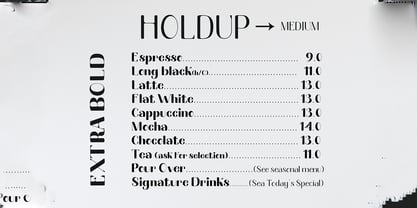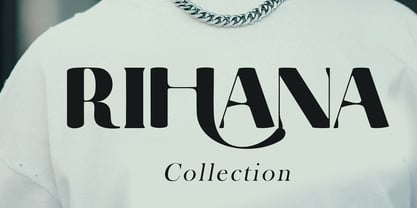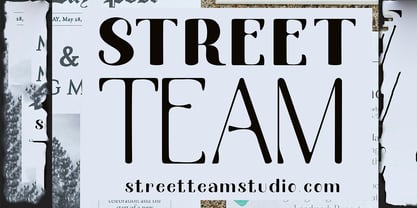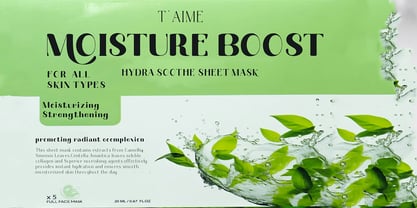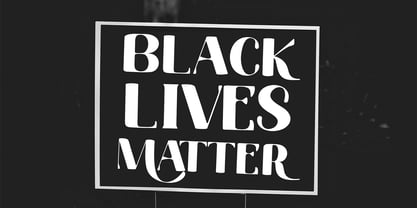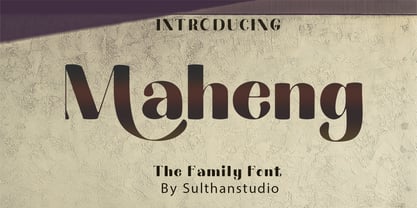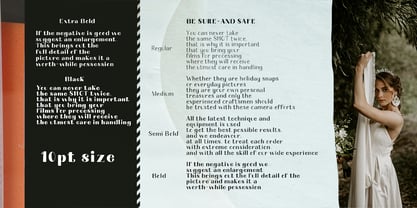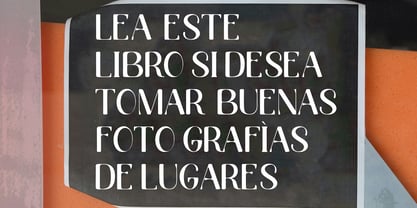
Maheng
The Maheng Font Family was designed by Nasrullah and published by Sulthan Studio. Maheng contains 6 styles and family package options. More about this family
Maheng Modern Serif is a versatile font family that serves as the backbone of impactful branding and logos, effectively articulating a unique and memorable brand image. This font effortlessly enhances magazine layouts, delivering eye-catching titles and headlines that captivate reader interest. Perfect for the fashion and cosmetics industry, Maheng embodies refined elegance, making it ideal for crafting sophisticated marketing materials. Elevate the personal and luxurious touch of invitation cards while adding depth to your messages with its striking style in quotes and posters. Maheng stands out as the essential tool to elevate your designs to new heights, seamlessly blending contemporary, feminine, and distinguished elements within a single font family. With various weights and OpenType features, Maheng is perfect for branding, web design, and editorial projects, ensuring that your typography resonates with your audience and enhances your visual storytelling.